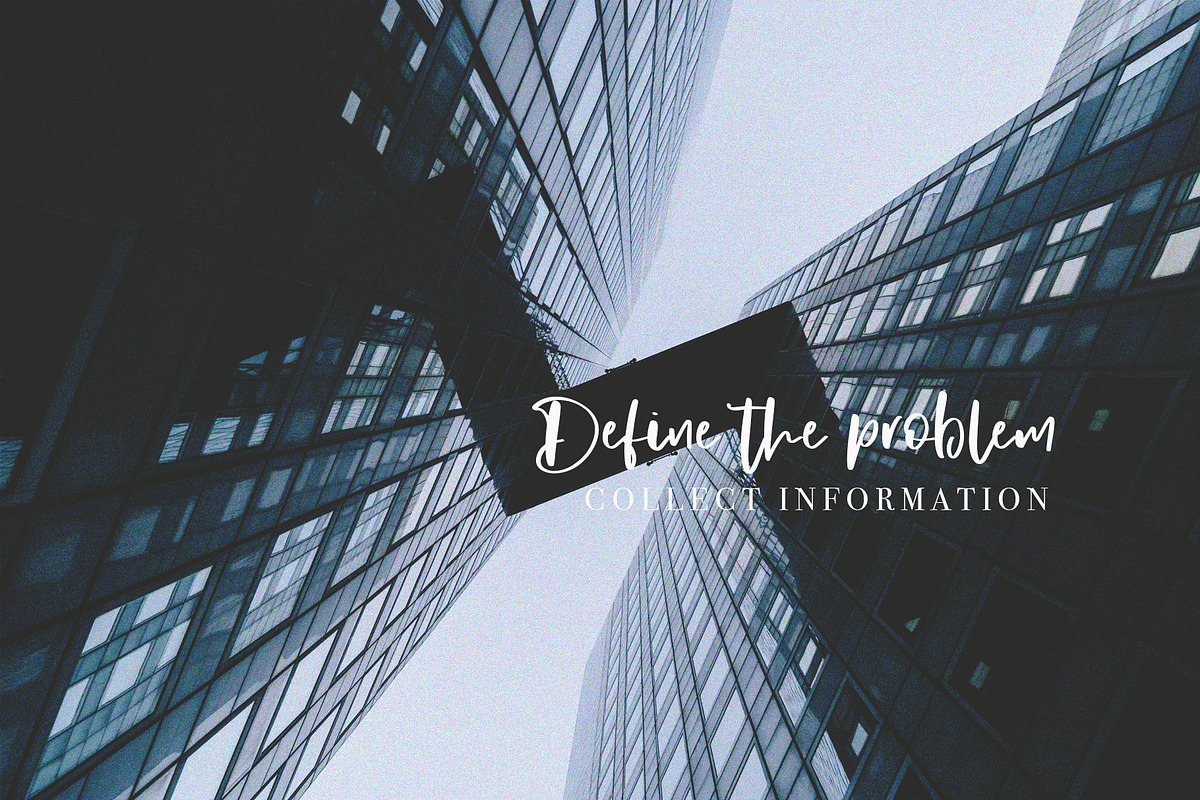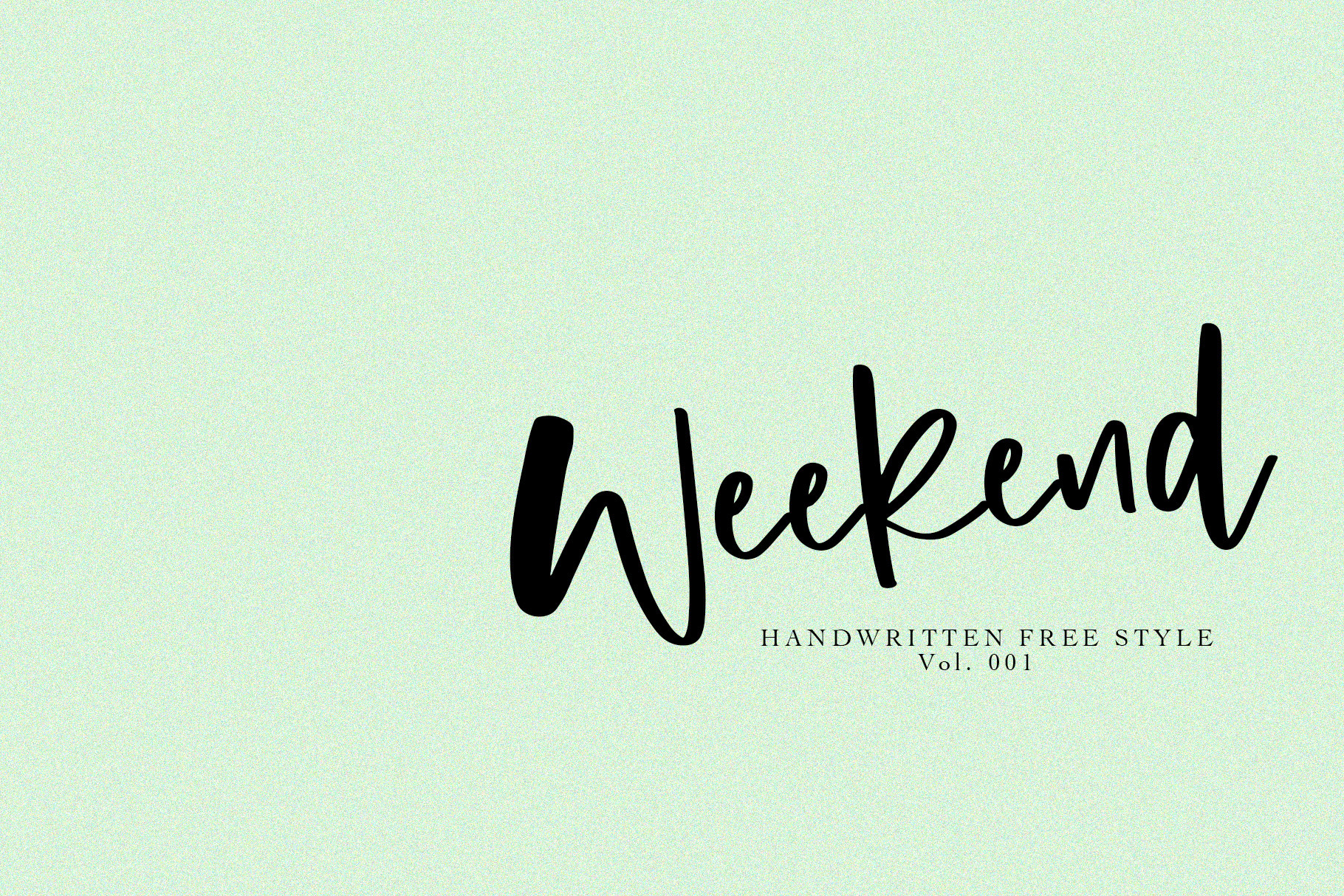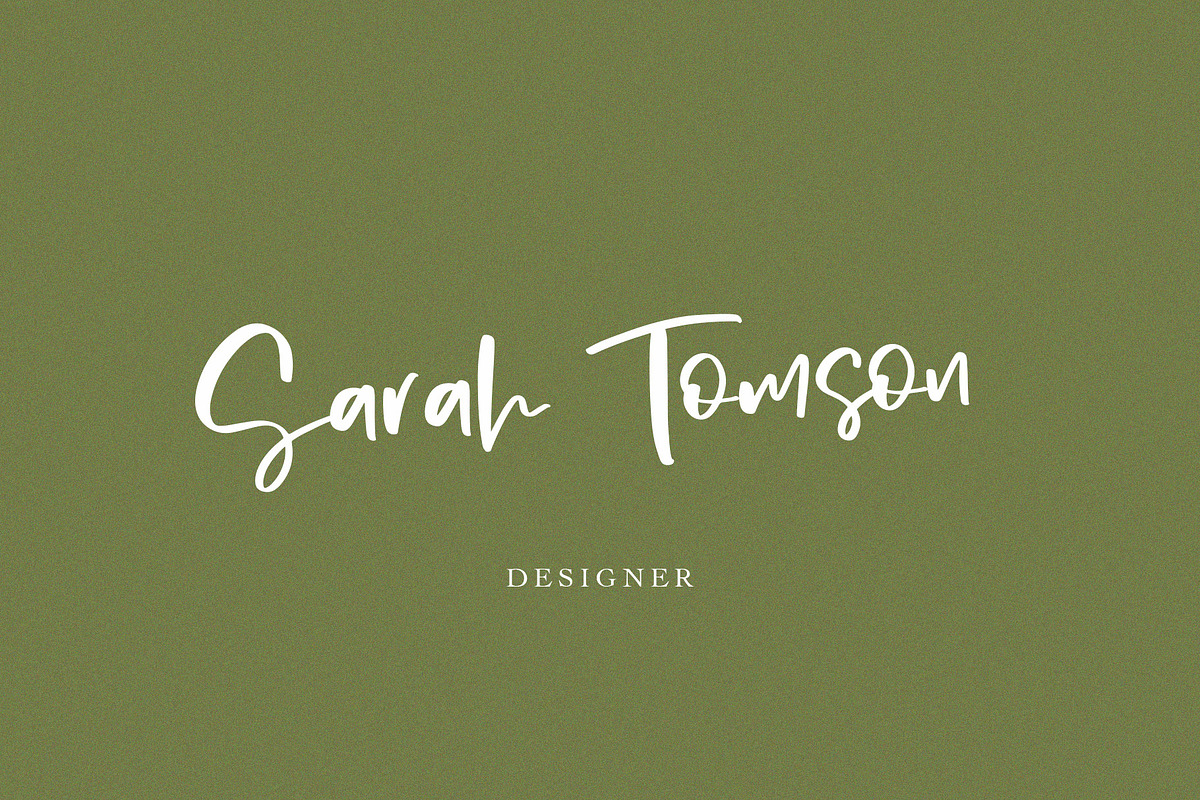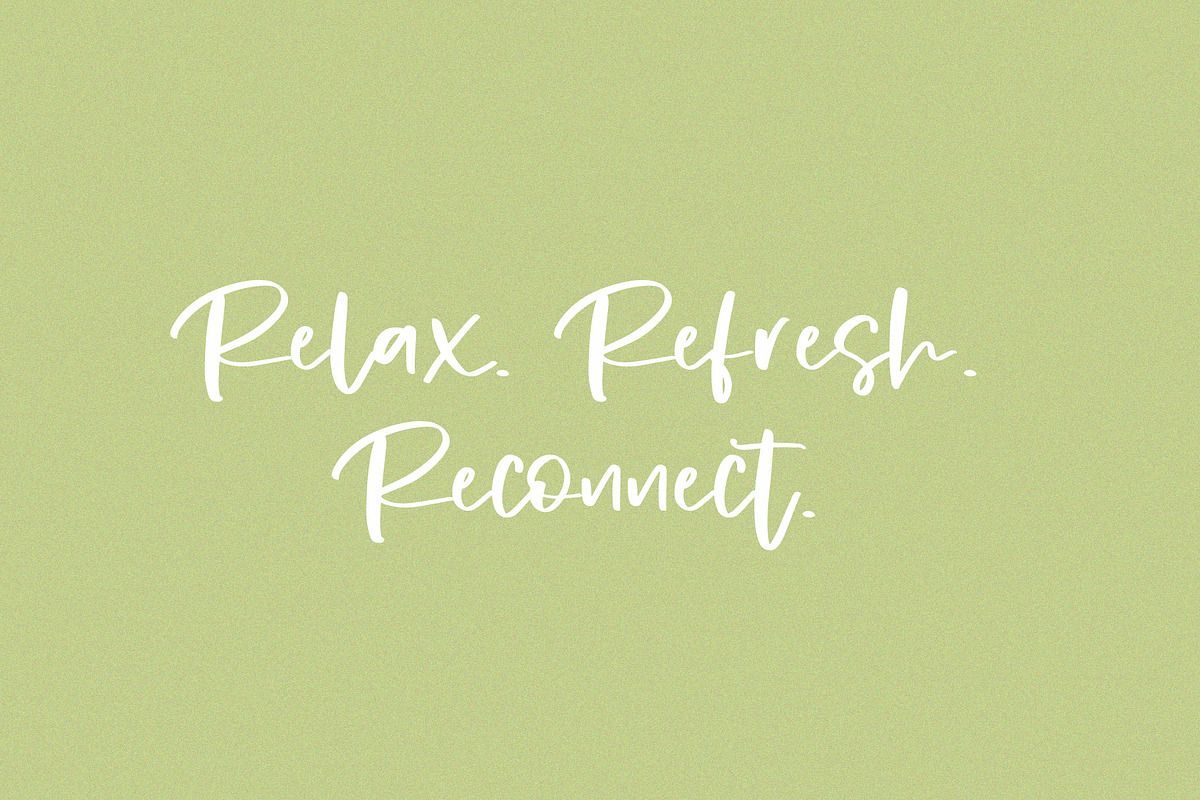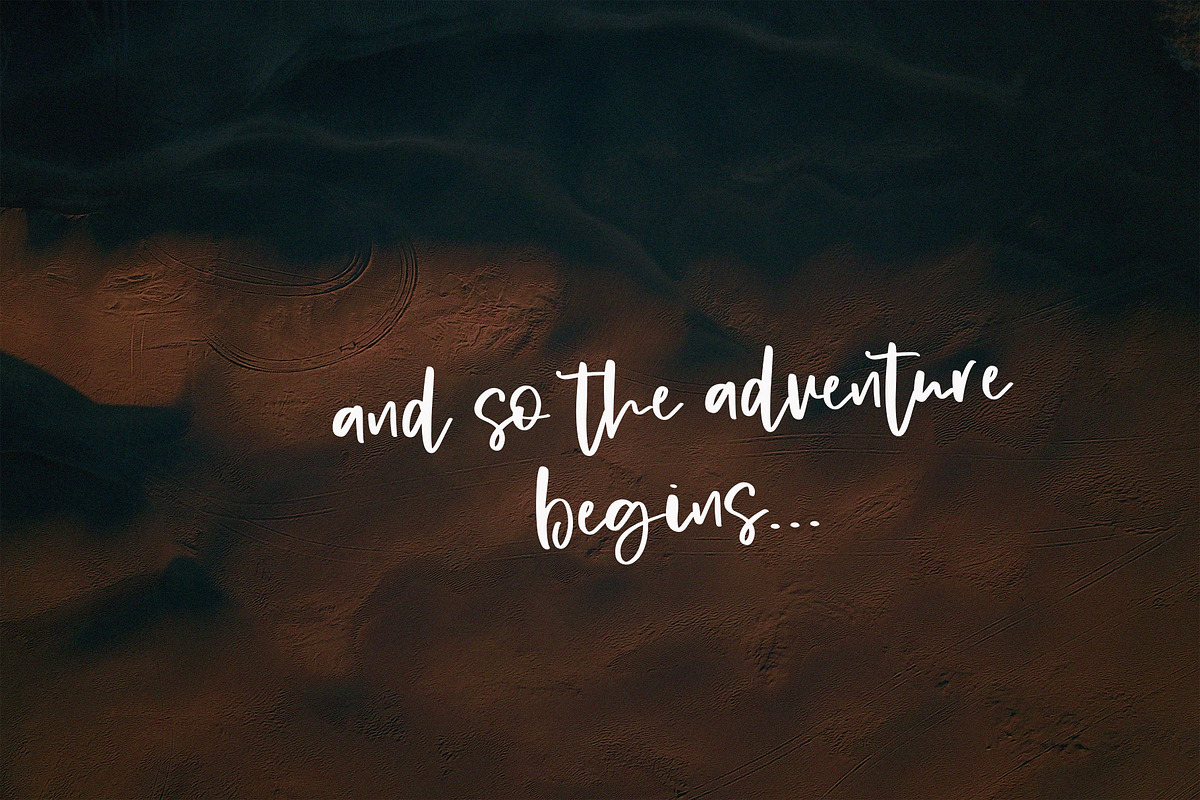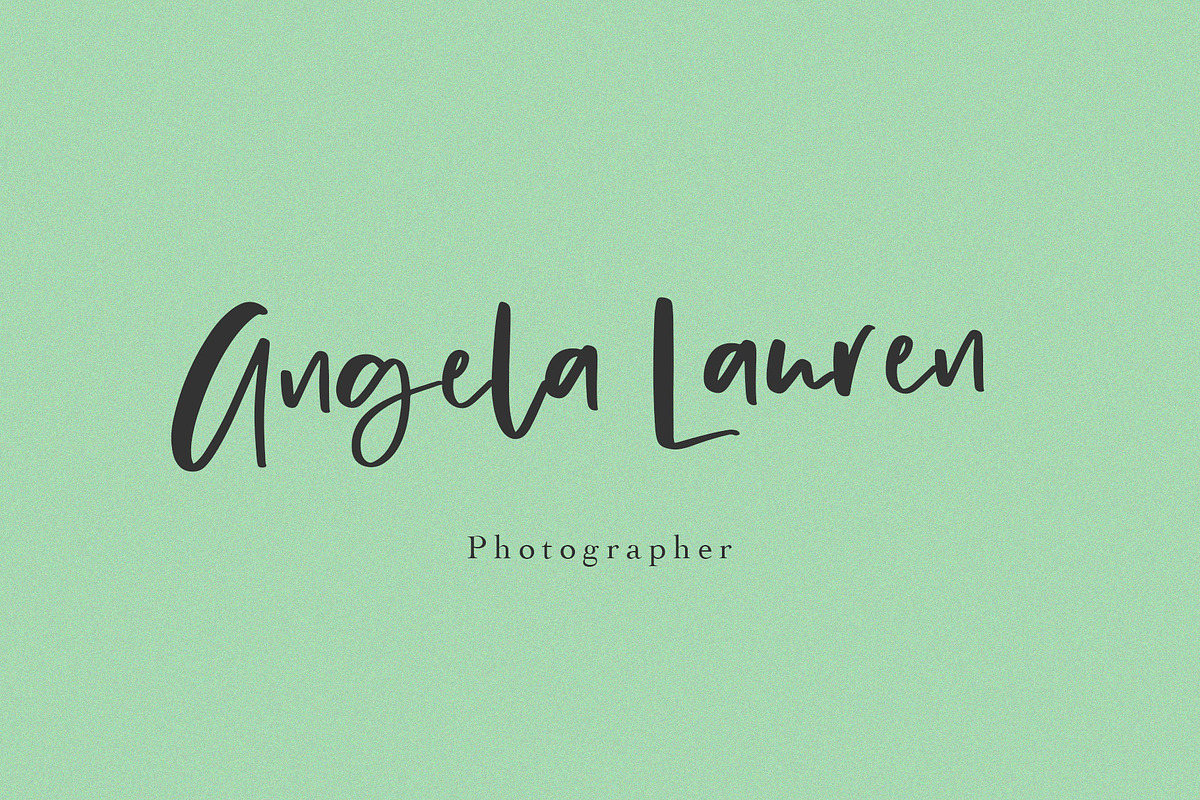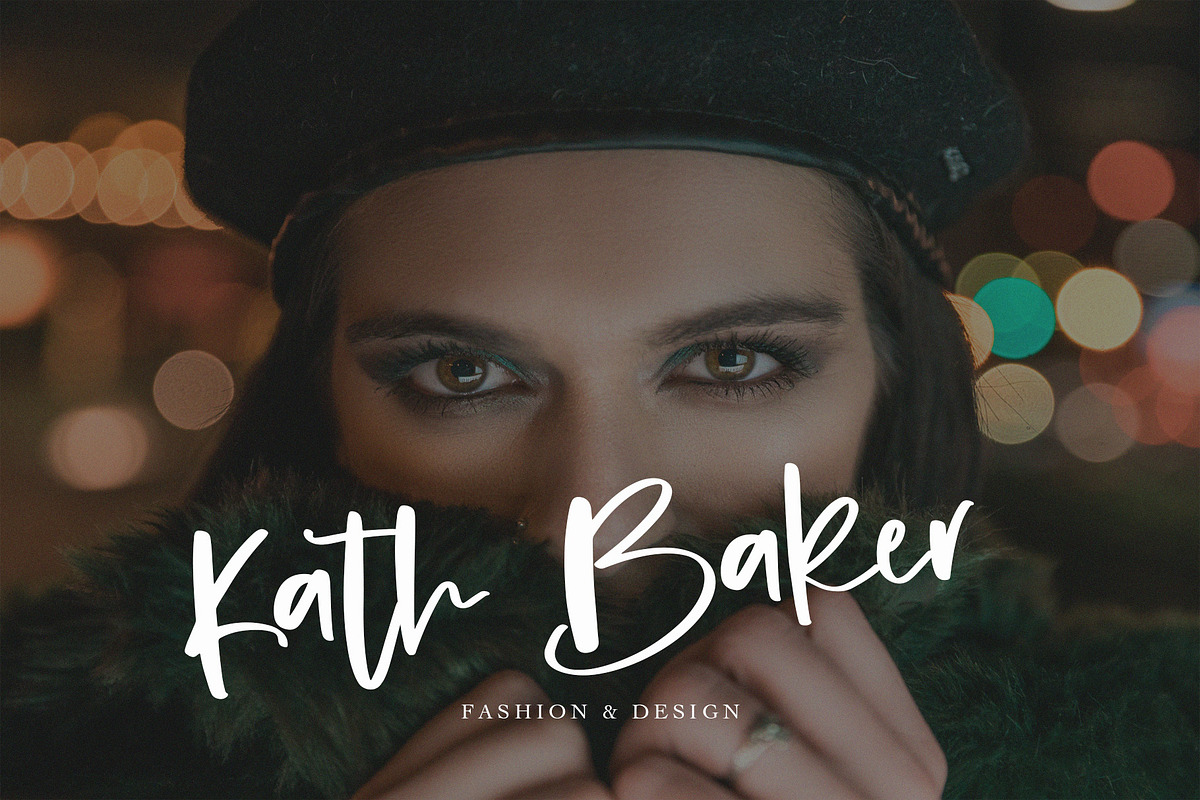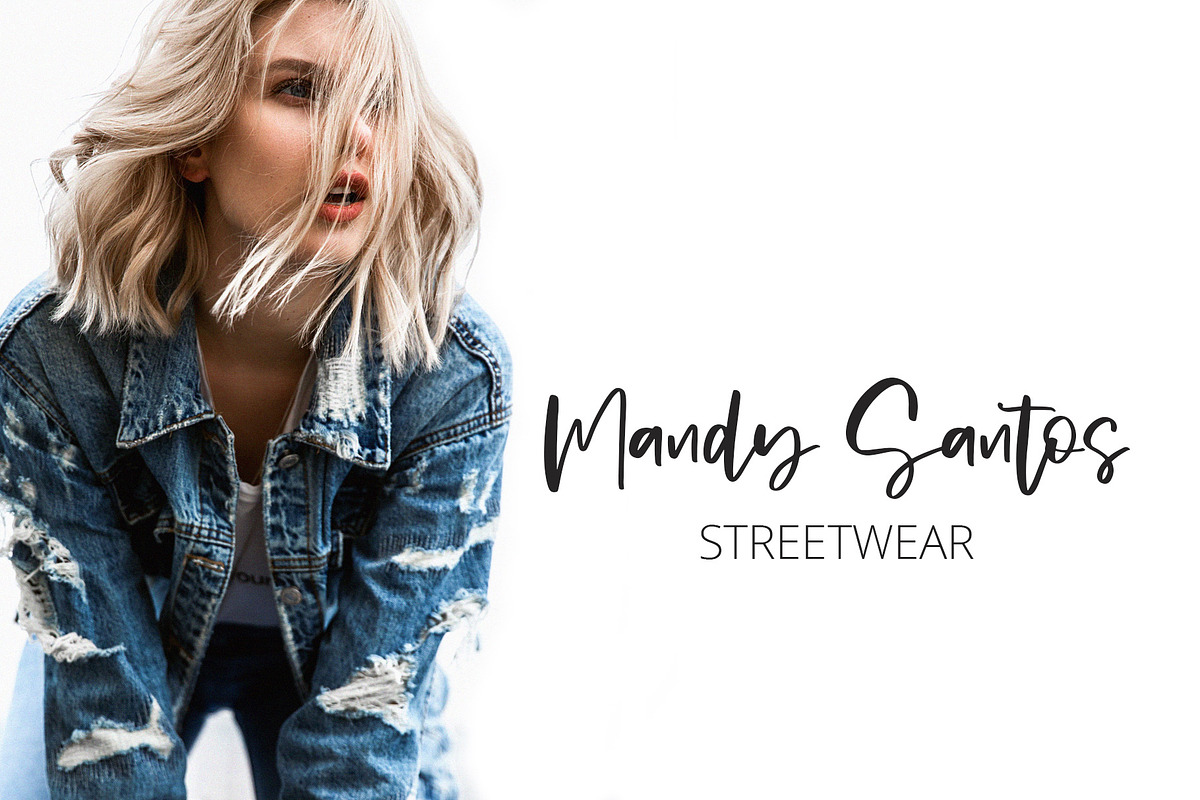
✑Weekend | Handwritten Font
I just finished my new font. Weekend It's perfect for your project.
I try to keep experimenting with handwritten fonts, stylish and shape with a free hand
This handwritten font is ideal for branding and decorates your any project. I think it combines all these qualities. Simple and clear.
Every single letter has been creative carefully. This font is perfect for making your set of invitations, Brand, blog posts, DIY projects, greeting cards, labels, quotes, posters, wall art, branding, packaging, websites, photo & photography overlays, signs, window art, scrapbooking, tags and so much more!
multilingual support for the following languages: Cornish, Danish, Dutch, English, Estonian, Faroese, Filipino, Finnish, French, Galician, German, Icelandic, Indonesian, Irish, Italian, Norwegian Bokmål, Norwegian Nynorsk, Portuguese, Spanish, Swahili, Swedish, Swiss German.